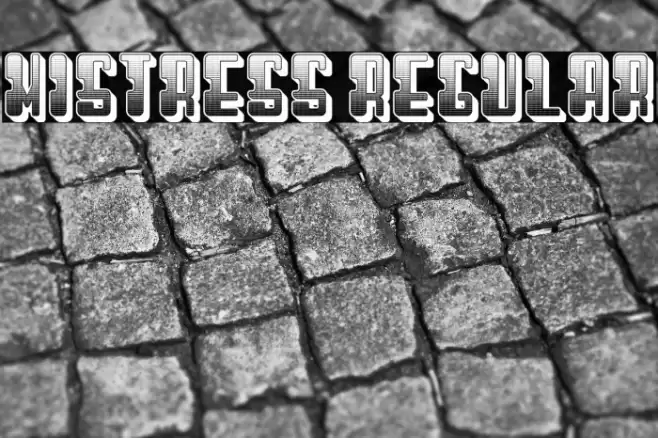
Mistress Regular Font
Mistress Regular Description
This font features a bold, decorative style with a unique grid pattern inside each character, giving it a textured, three-dimensional appearance. The letters are outlined with a thick black border, enhancing their visibility and adding a shadow effect. The geometric design is consistent across all characters, creating a cohesive and striking look. The uppercase letters are uniform in height, while the lowercase letters maintain a similar width, ensuring readability. The font's playful and modern aesthetic makes it suitable for eye-catching designs.
A bold, decorative font with a grid pattern and thick outlines, offering a modern and playful style from Uncategorized fonts.
- Proposed Projects: Ideal for poster designs, branding projects, album covers, and any creative work requiring a bold statement.